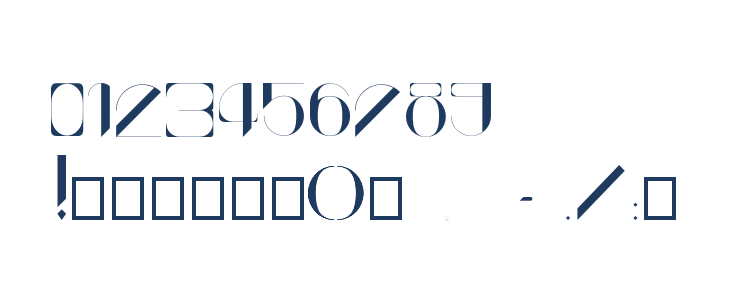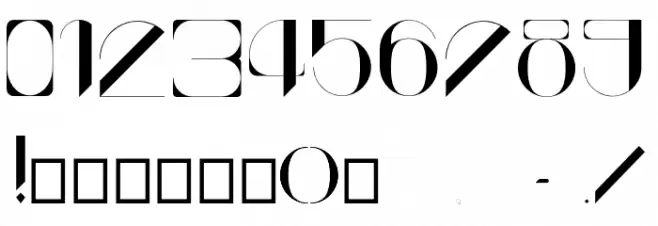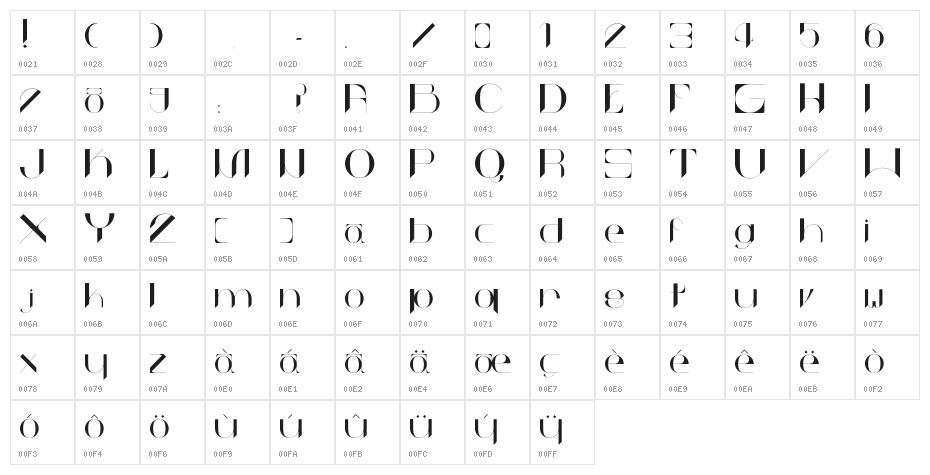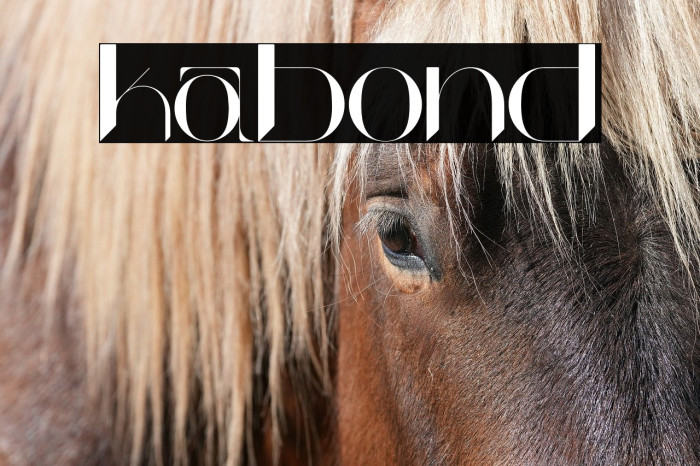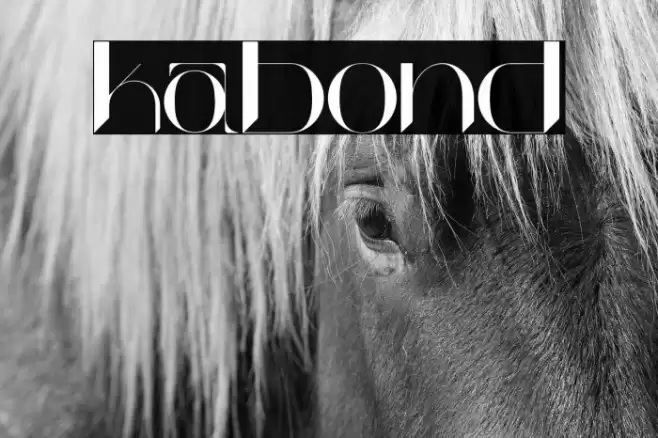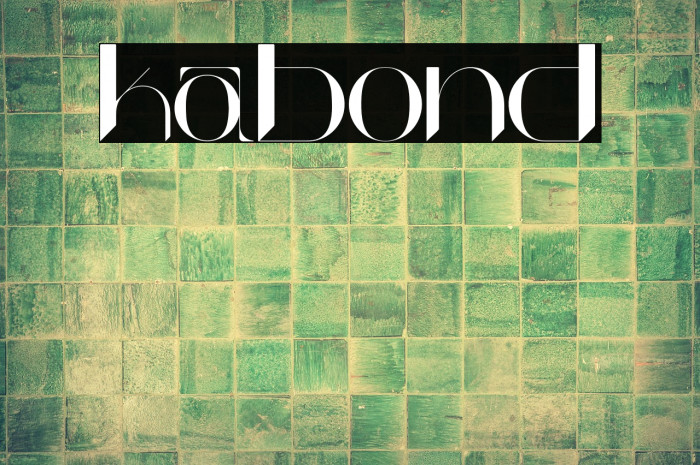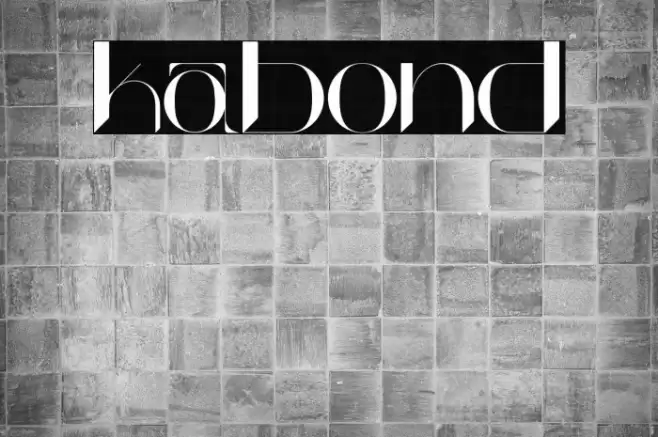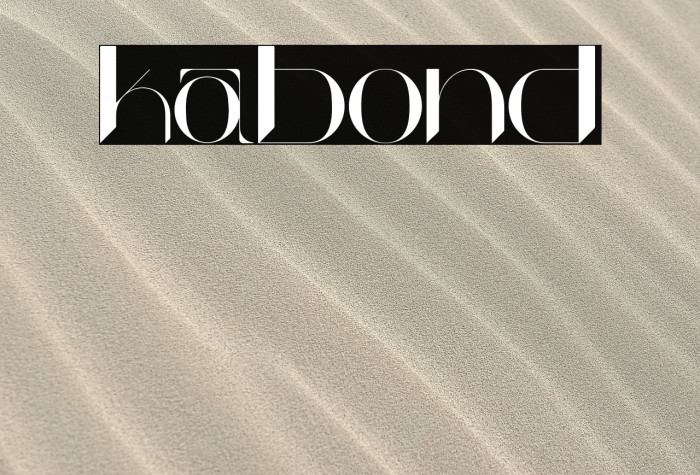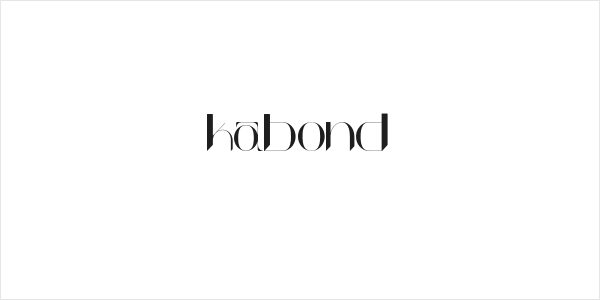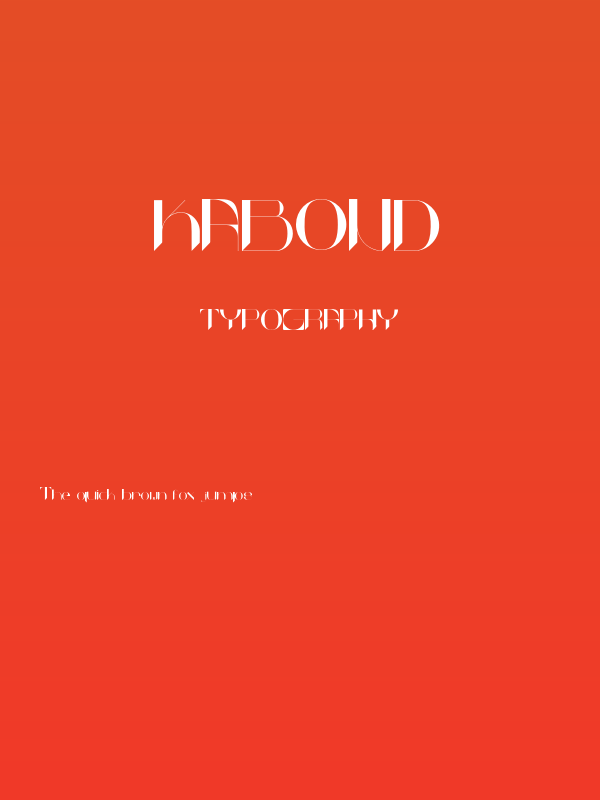
kabond Font
kabond Description
This font features a modern and artistic design with a unique blend of geometric and abstract elements. The characters are crafted with a combination of sharp angles and smooth curves, creating a visually striking appearance. The uppercase letters exhibit a bold and dynamic style, while the lowercase letters maintain a more fluid and elegant form. Numbers and special characters follow the same design principles, ensuring consistency throughout. The font's distinct style makes it suitable for creative and contemporary projects.